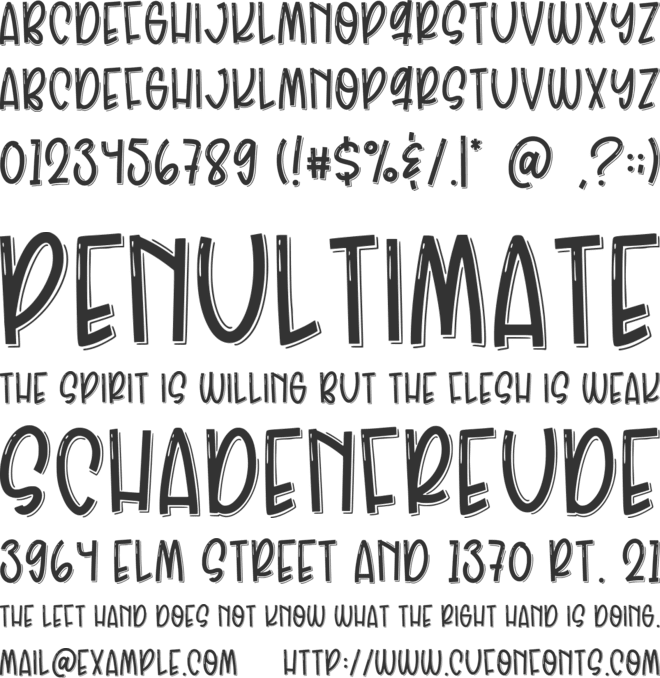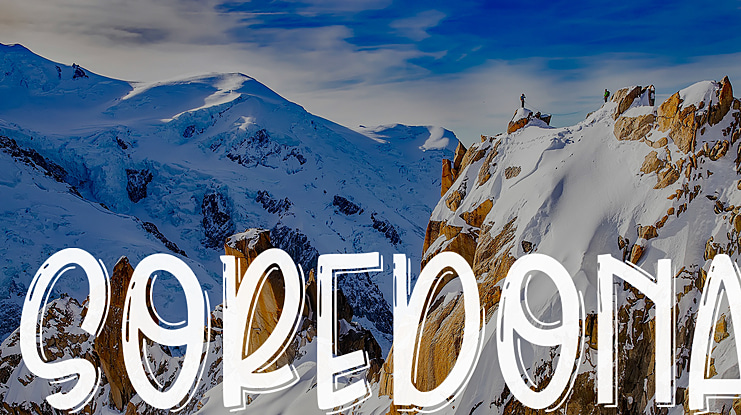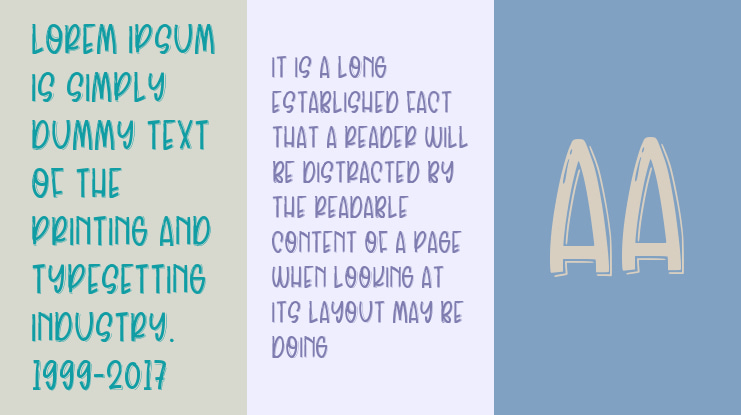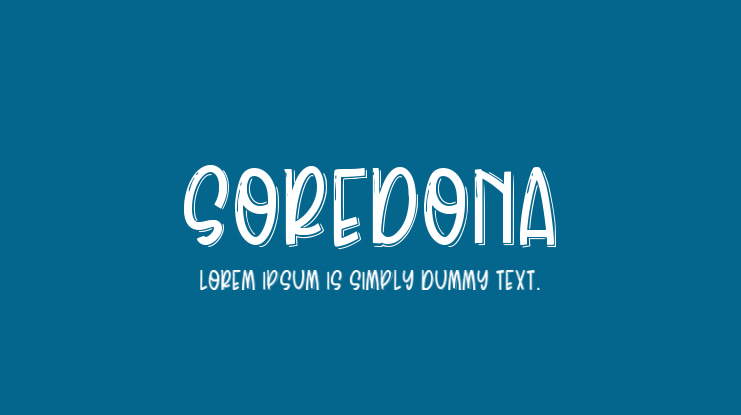
Soredona Font
SOREDONA - layered handwritten font -
It is great for branding, packaging, quotes, t-shirt design, card, banner, cutting, silhouette, and anything of craft project.